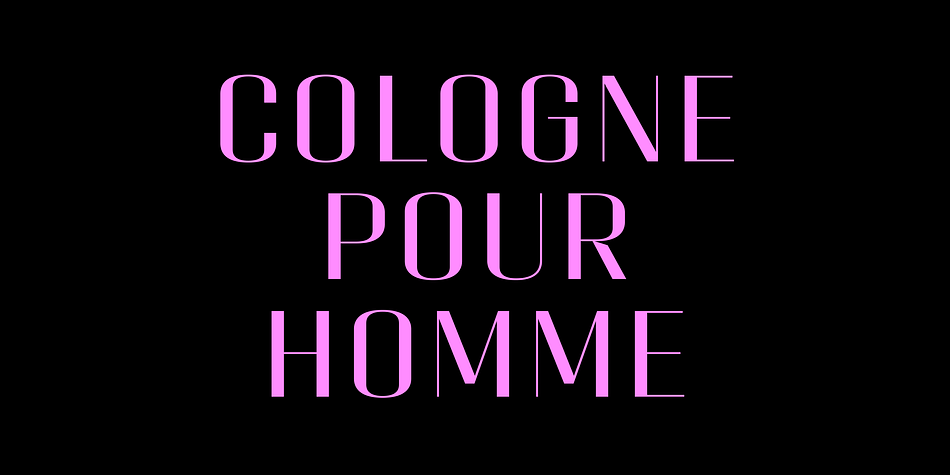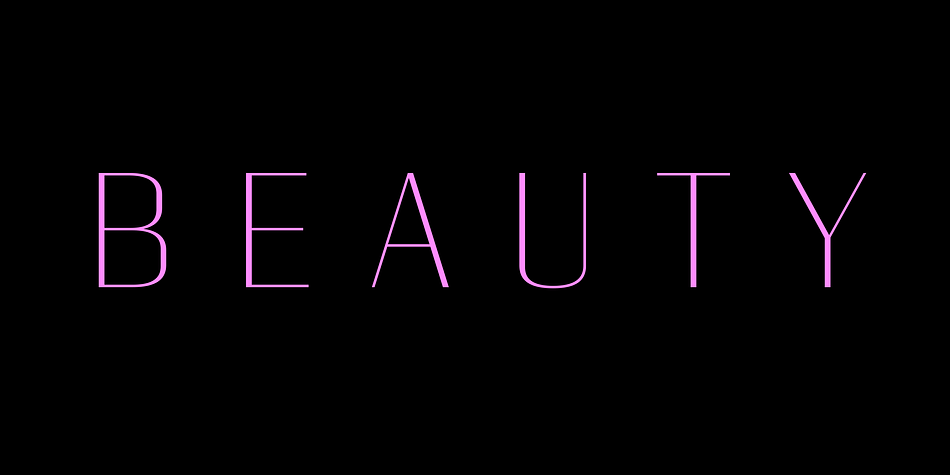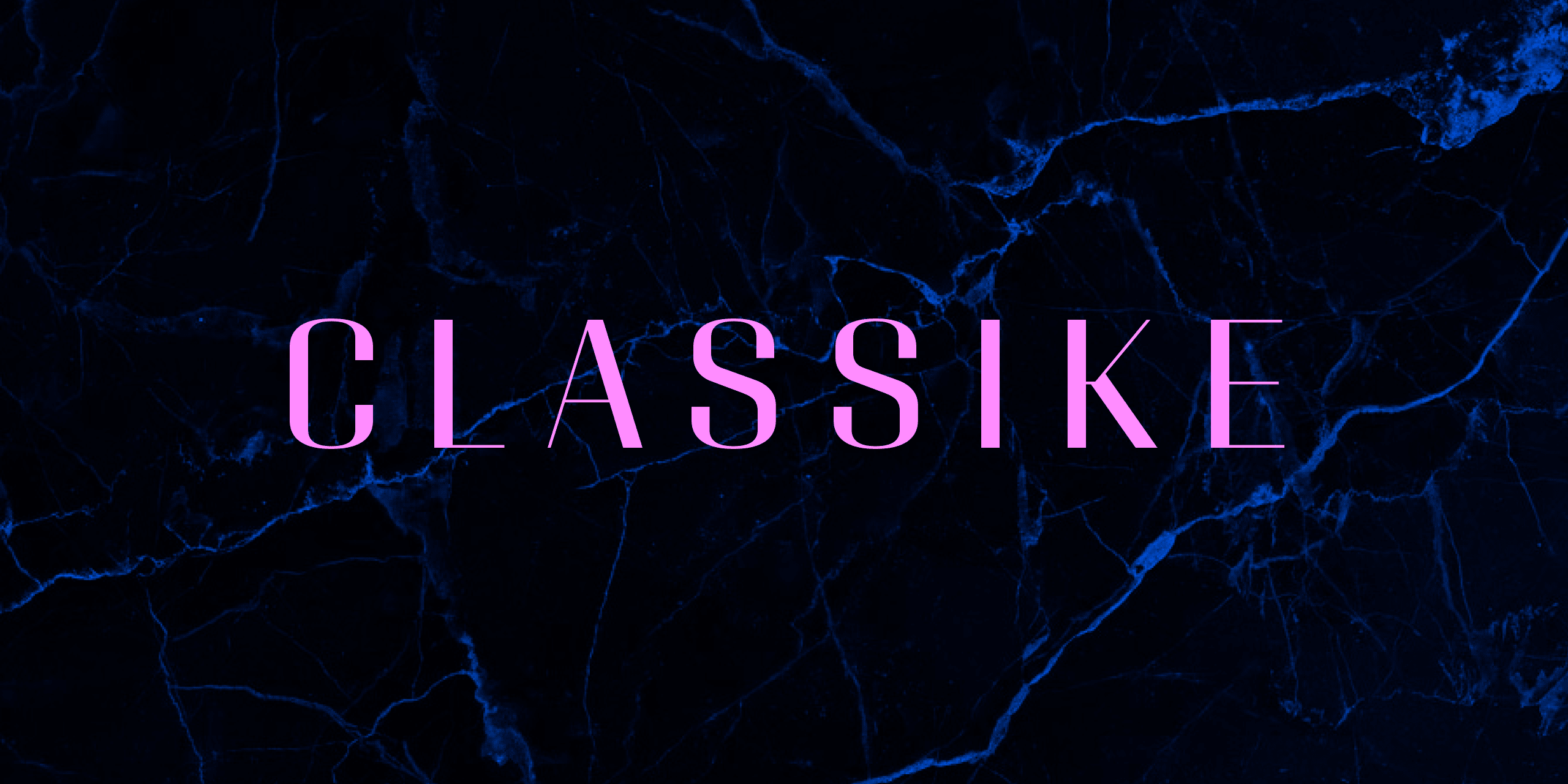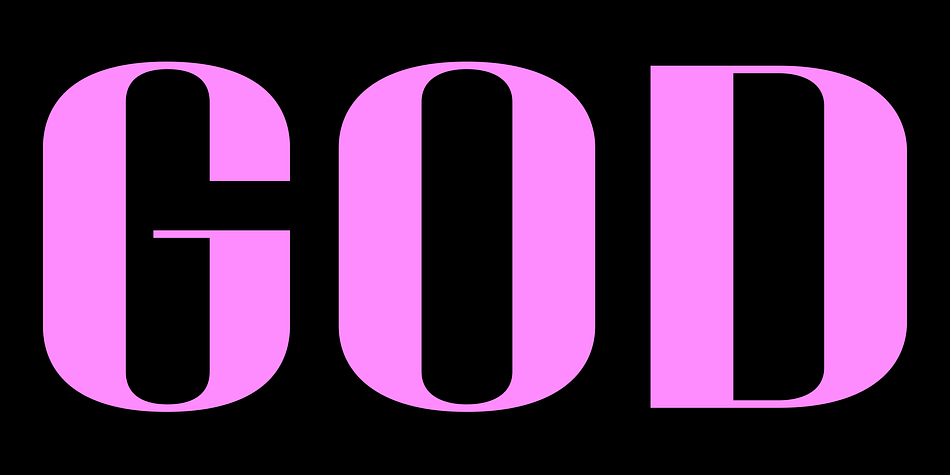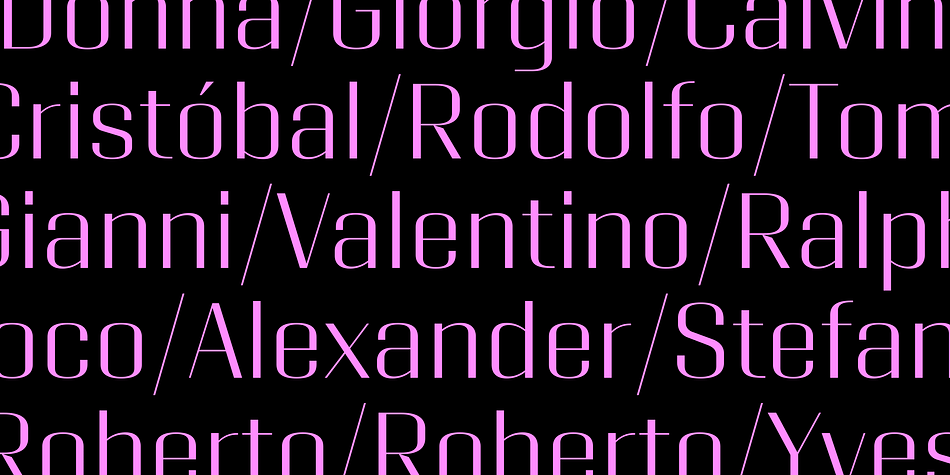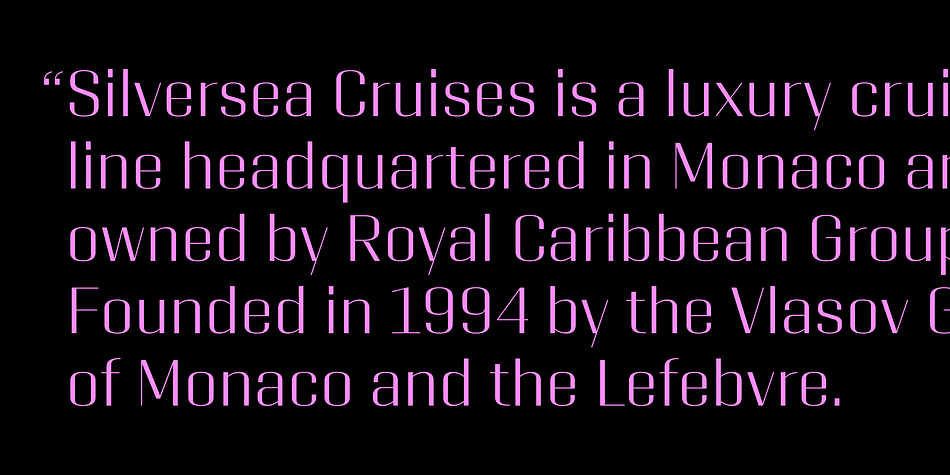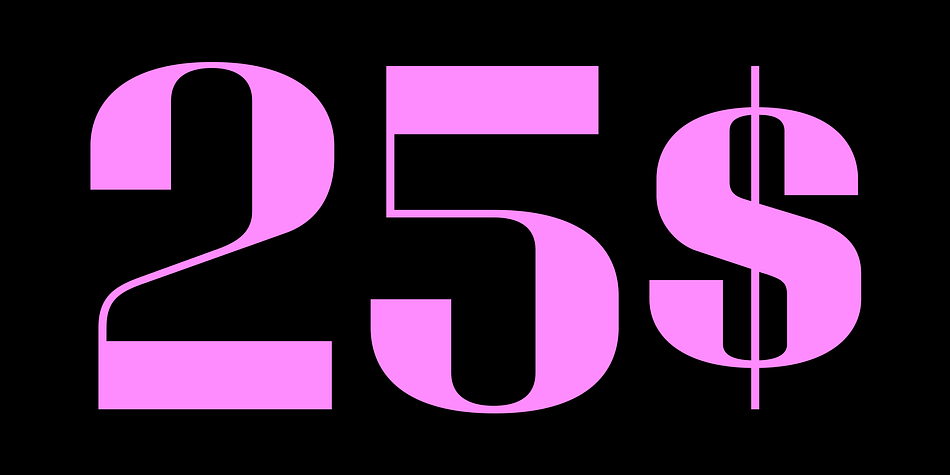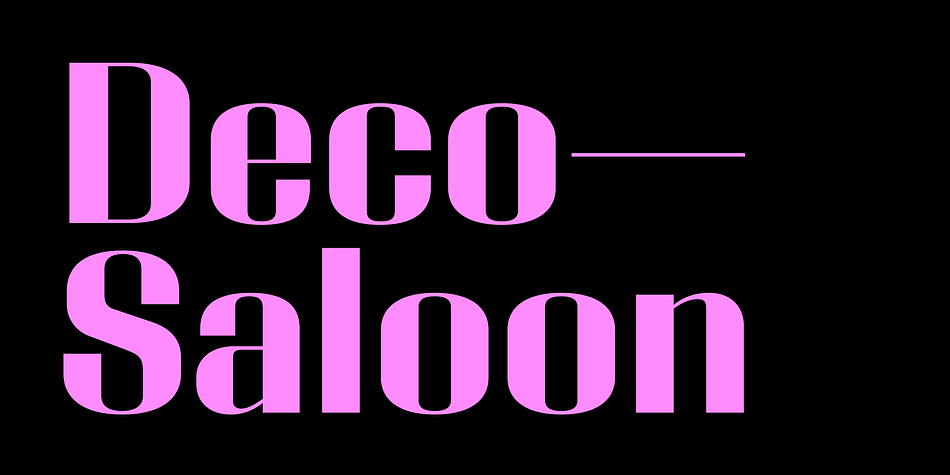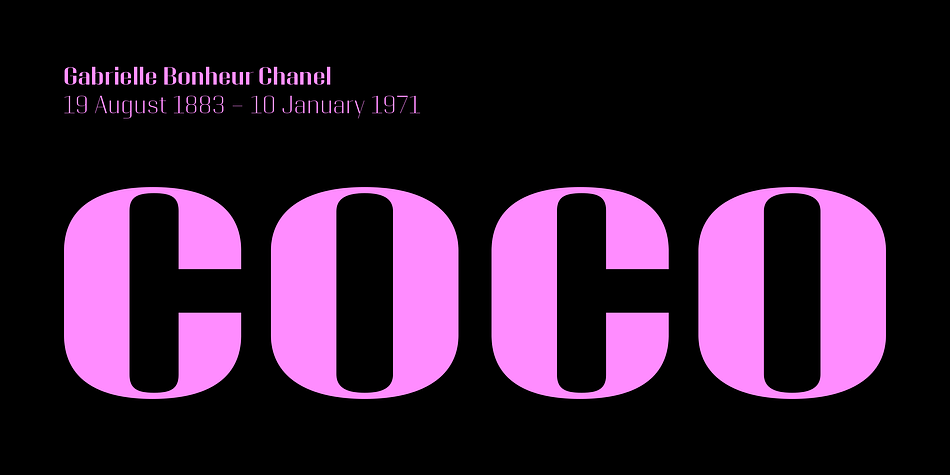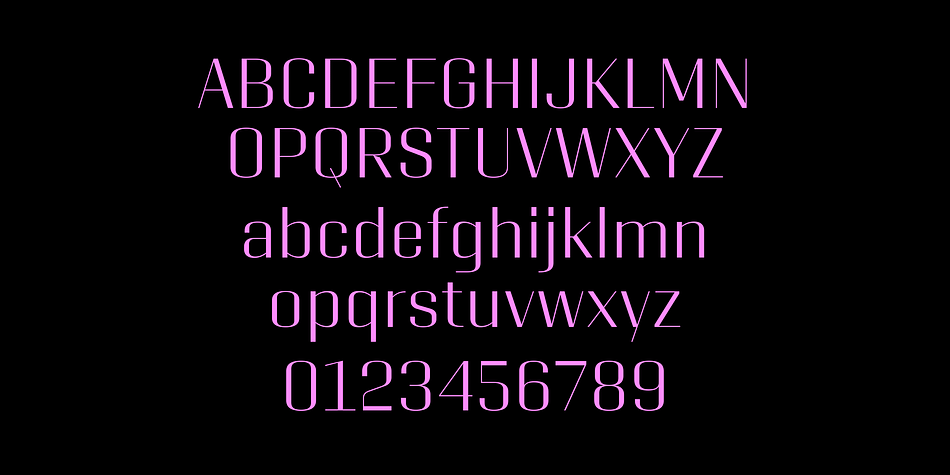
Classike
Designed by Eduardo Manso, Classike is a display sans font family. This typeface has thirteen styles and was published by Emtype Foundry.
Classike is a high contrast squarish display typeface. Inspired by the Art Déco period from a modern perspective. Refined and elegant yet with a mechanical vibe, it is ideal for pairing with any functional font, it works especially well with Geogrotesque, from which it inherited its proportions and soul. Classike adds an exclusive touch and helps enrich your graphic voice. A Variable Font version is included with the family or as a separate style.